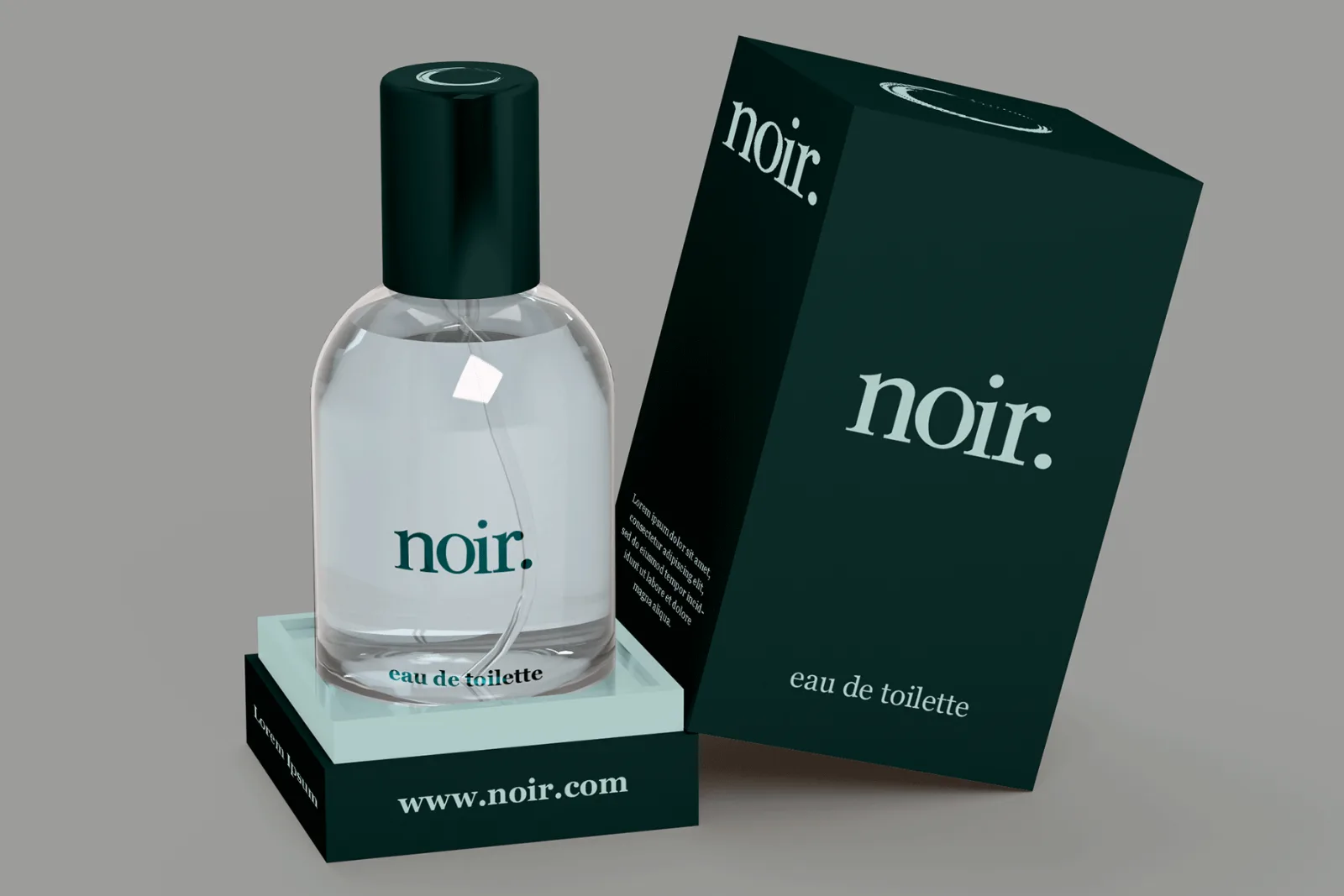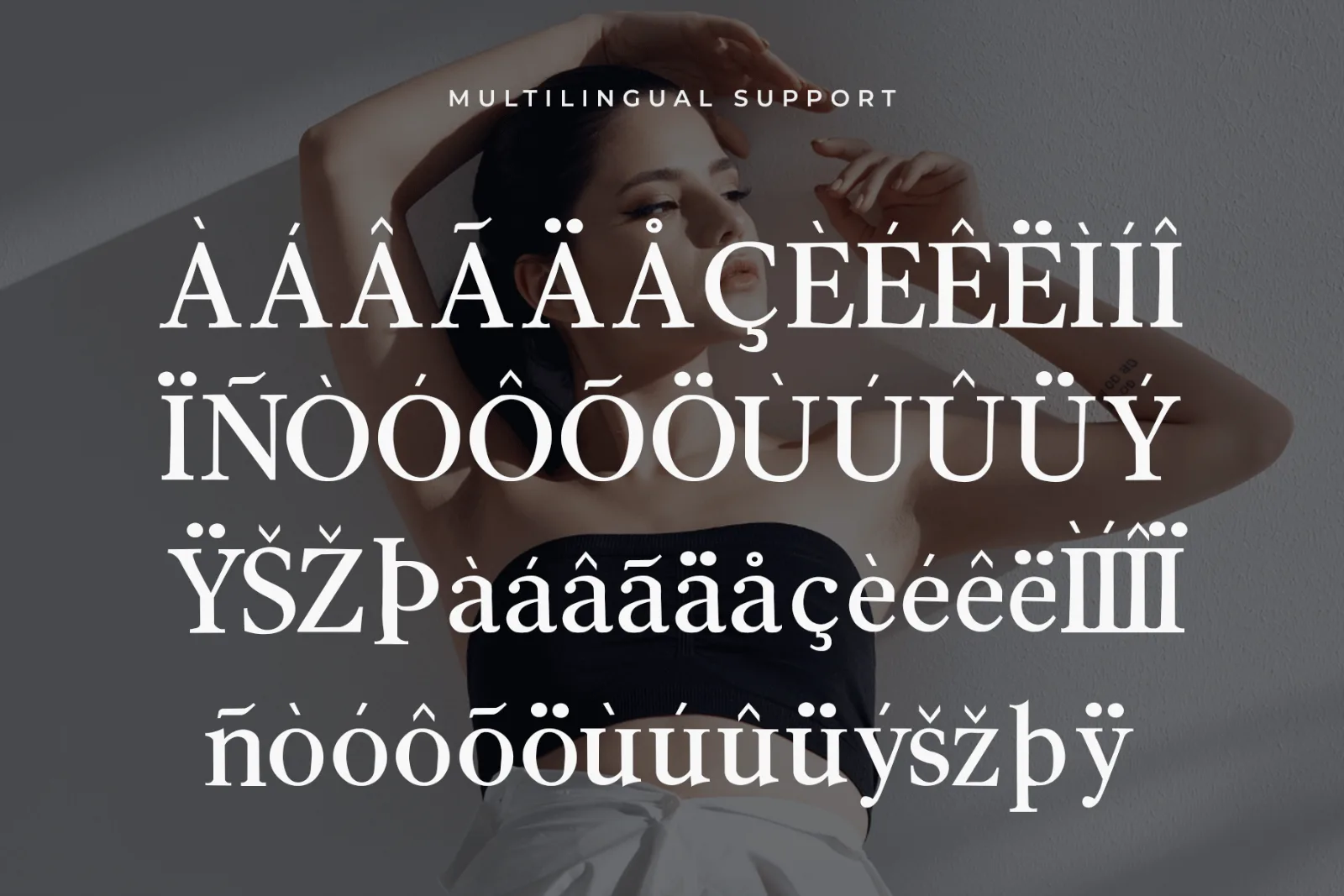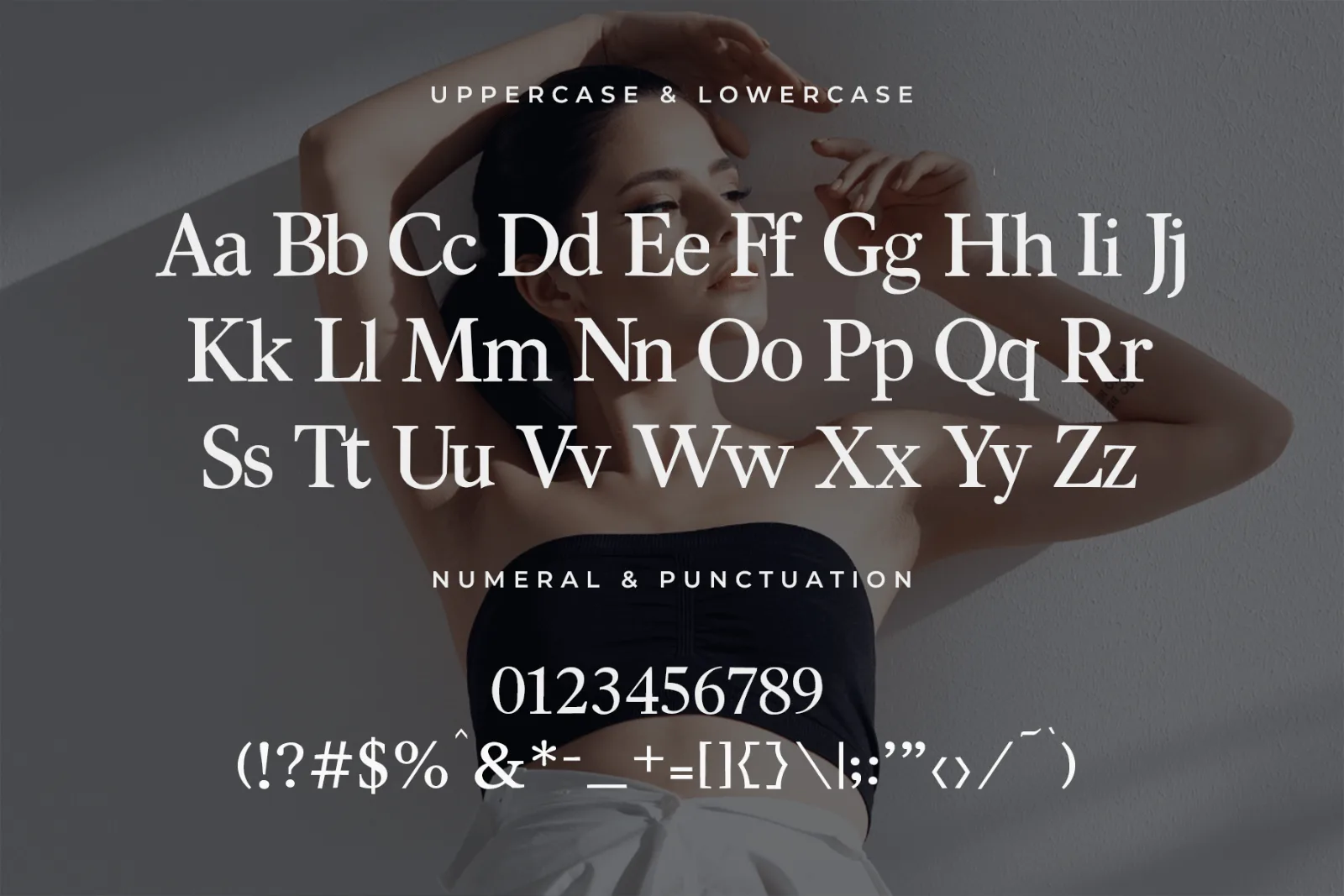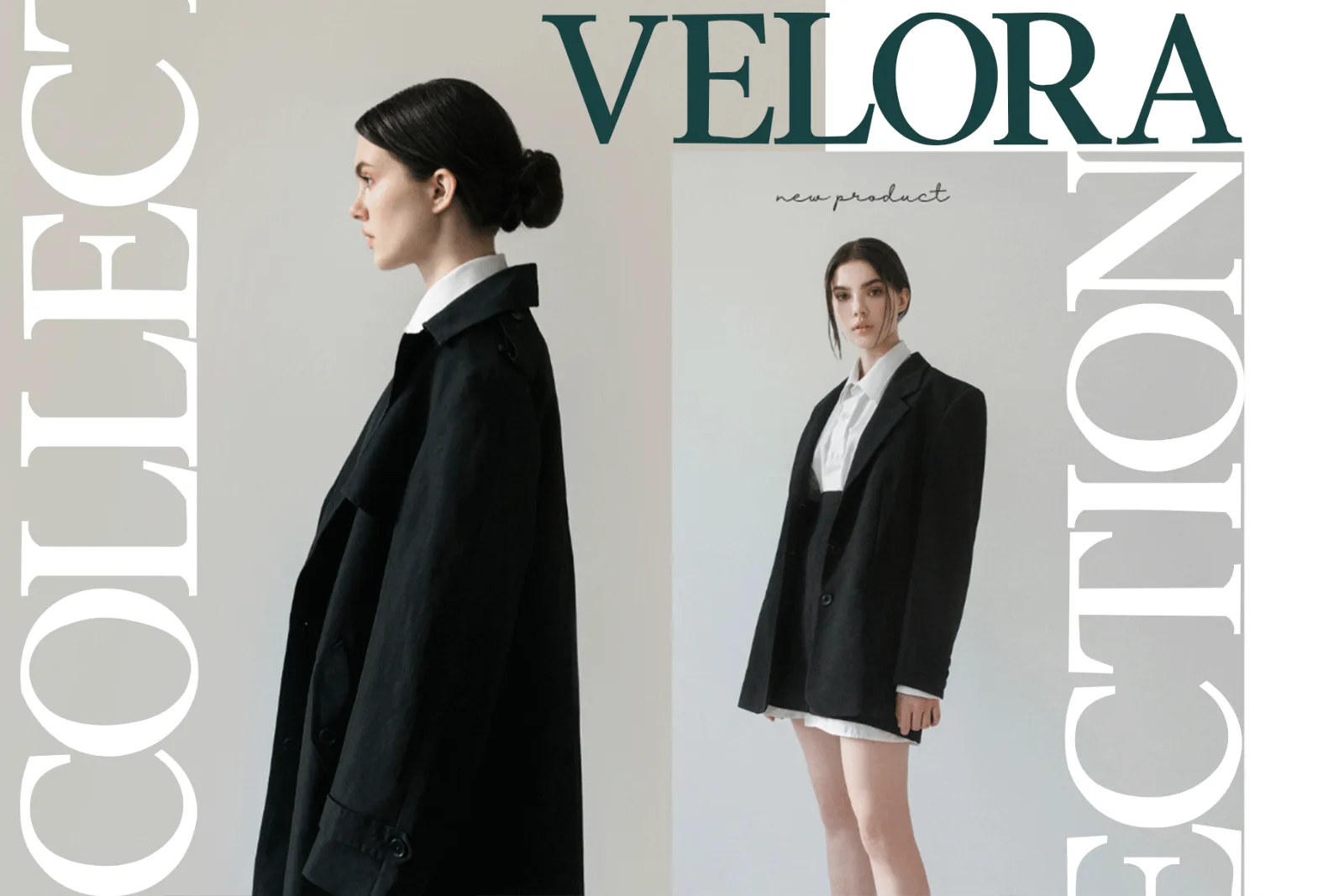
Lucerra – Modern Fashion Serif Font
Lucerra is a refined modern serif font designed for fashion-forward branding, elegant editorial layouts, and sophisticated visual identities. Its graceful curves, high-contrast forms, and polished details create a luxurious look that feels contemporary and timeless.
Perfect for projects that need a clean yet premium personality, Lucerra works beautifully for fashion brands, magazines, beauty products, perfume packaging, logos, wedding stationery, and upscale advertising.
Perfect for:
- Fashion Branding
- Luxury Logos
- Editorial Design
- Magazine Covers
- Beauty & Cosmetic Branding
- Perfume Packaging
- Wedding Invitations
- Jewelry Branding
- Premium Packaging
- Boutique Identity
- Social Media Design
- Elegant Advertising